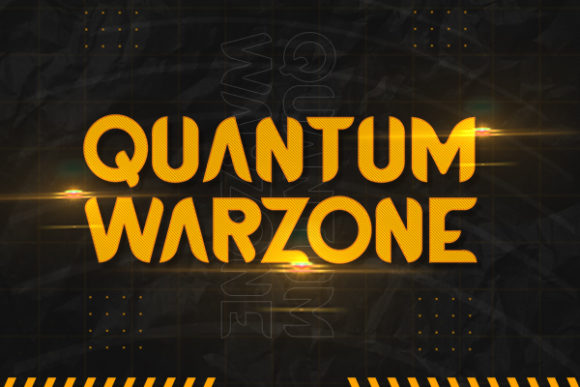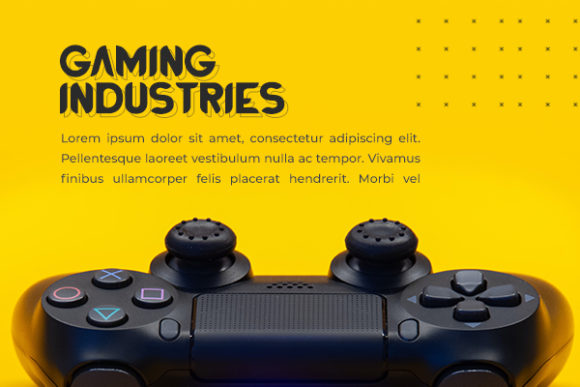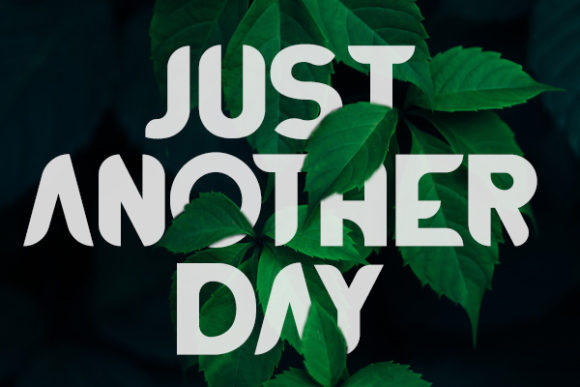
Unleash the Intensity: Introducing the Battle Royale Font
Are you tired of using the same old fonts for your creative projects? Do you want to add a touch of boldness and edginess to your designs? Look no further than the Battle Royale font! This chunky lettered display font is perfect for making your ideas stand out from the crowd.
What is Battle Royale Font?
Battle Royale is a bold and chunky lettered display font that is designed to make a statement. With its rugged and edgy aesthetic, this font is perfect for creating eye-catching headlines, titles, and captions. Whether you’re working on a graphic design project, crafting a logo, or creating social media content, Battle Royale is sure to grab attention.
Key Features of Battle Royale Font
- Bold and Chunky Design: Battle Royale features a bold and chunky design that is perfect for creating eye-catching text.
- Edgy Aesthetic: The font’s rugged and edgy aesthetic makes it perfect for creating designs that require a bold and daring look.
- Display Font: Battle Royale is a display font, making it perfect for use in headlines, titles, and captions.
- Easy to Read: Despite its bold design, Battle Royale is easy to read, even at smaller sizes.
How to Use Battle Royale Font
Battle Royale is a versatile font that can be used in a variety of creative projects. Here are a few ideas to get you started:
- Graphic Design Projects: Use Battle Royale to create eye-catching posters, flyers, and brochures.
- Logo Design: Add a bold and edgy touch to your logo designs with Battle Royale.
- Social Media Content: Use Battle Royale to create attention-grabbing social media posts and captions.
- Crafting and DIY Projects: Add a personal touch to your crafting and DIY projects with Battle Royale.
Why Choose Battle Royale Font?
With so many fonts available, why choose Battle Royale? Here are a few reasons:
- Unique Design: Battle Royale features a unique and bold design that will make your projects stand out.
- Versatile: Battle Royale can be used in a variety of creative projects, from graphic design to crafting and DIY.
If you’re looking for a bold and edgy font to add to your creative projects, look no further than Battle Royale. With its chunky design and rugged aesthetic, this font is perfect for making a statement. Whether you’re a designer, crafter, or DIY enthusiast, Battle Royale is sure to become a go-to font in your collection.
Get Ready to Take Your Designs to the Next Level